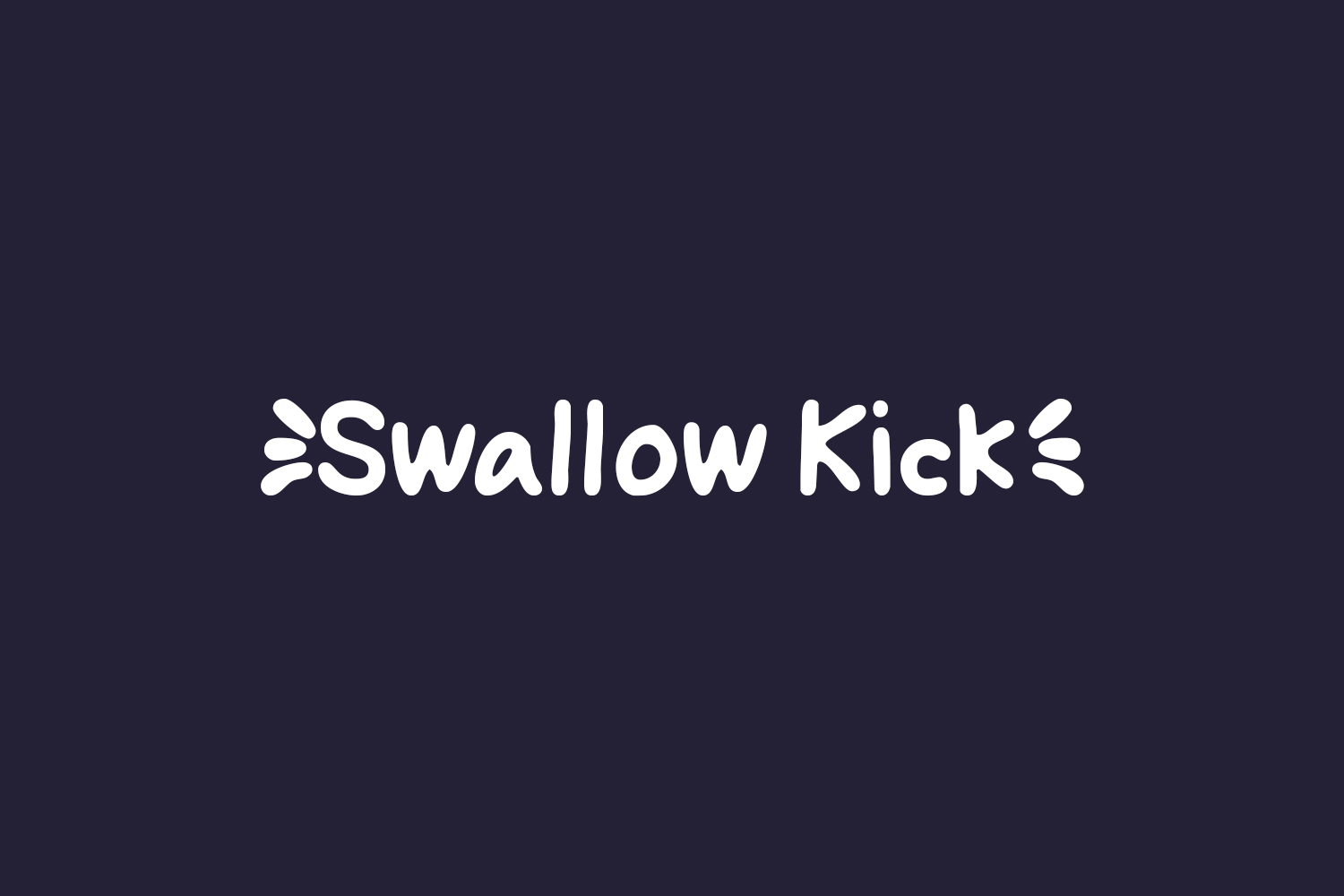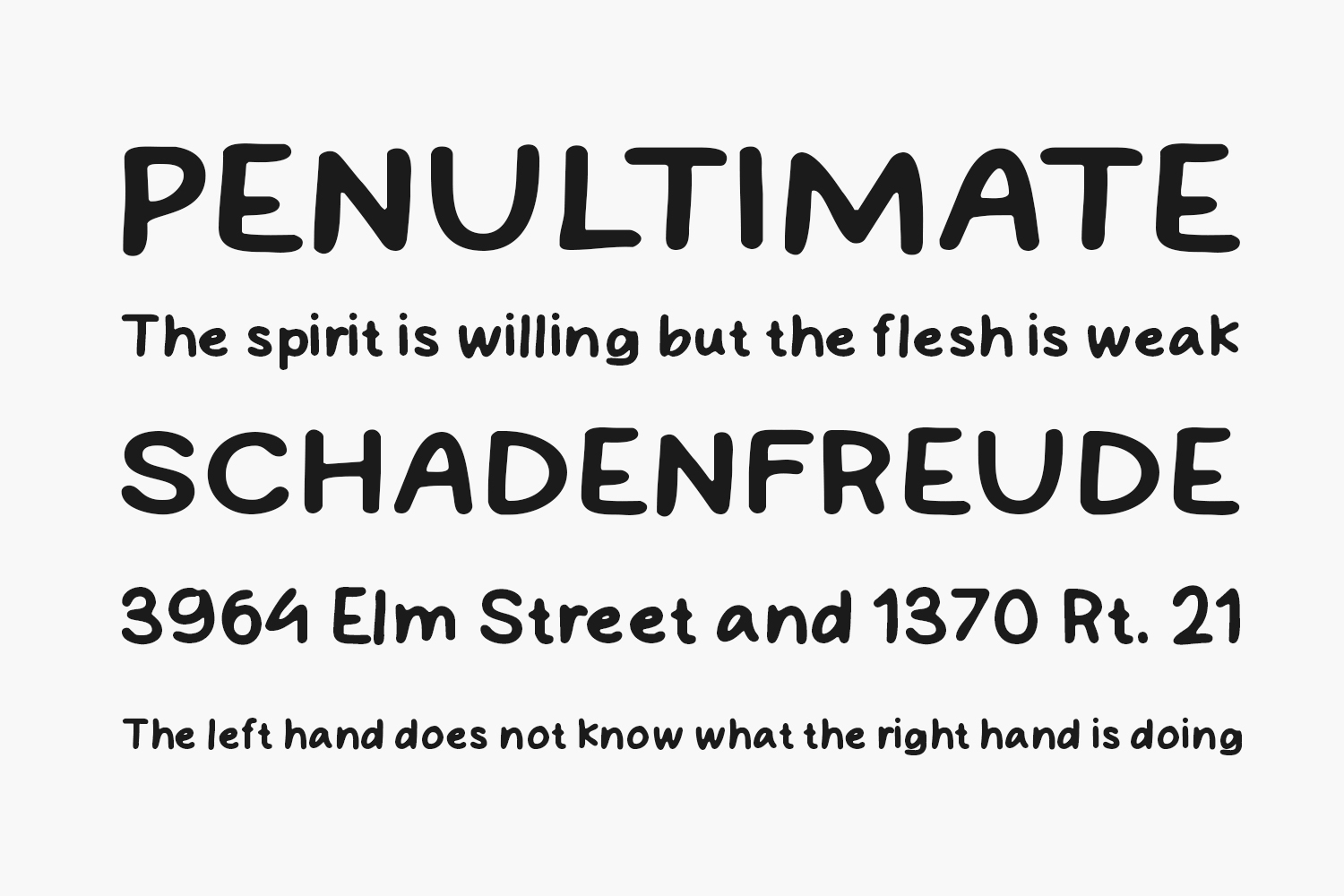
Swallow Kick Free Font is a type of font that is designed to look playful and whimsical, perfect for use in projects that require a fun and lighthearted aesthetic. The font features bold, rounded letters with a unique hand-drawn style, reminiscent of a comic book or cartoon.
The Swallow Kick font includes uppercase and lowercase letters, as well as punctuation and special characters, allowing for a wide range of design possibilities. The letters are carefully crafted with intricate details and flourishes, making them stand out and grab attention. Swallow Kick Free Font is free for personal or commercial use.